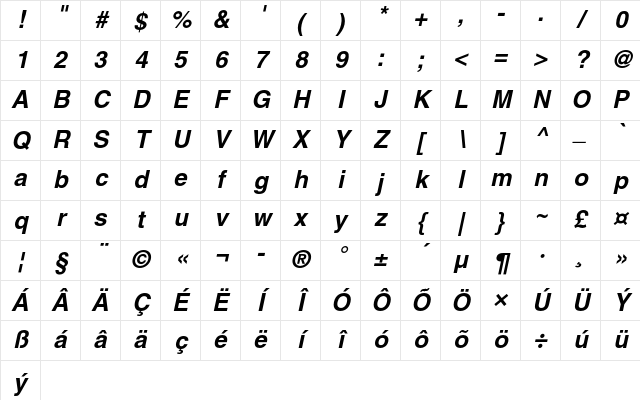
Helvetica CE Bold Oblique
Style: CE Bold Oblique
Complete Helvetica CE Bold Oblique glyph index. Displaying only characters natively supported by Helvetica CE Bold Oblique font.
Design Context for Helvetica
Helvetica is a composed and adaptable typeface that performs quietly and consistently across a wide range of design contexts. The slanted form adds forward momentum and visual energy. Its bold stroke weight gives it real presence on the page.